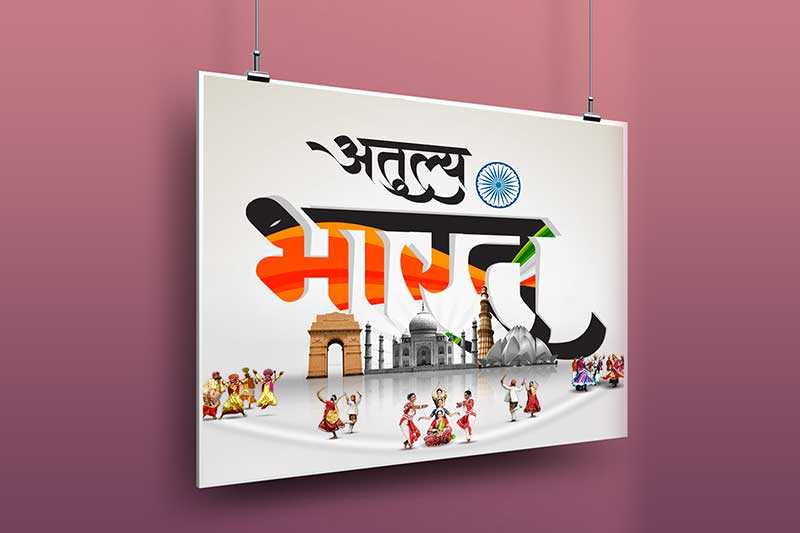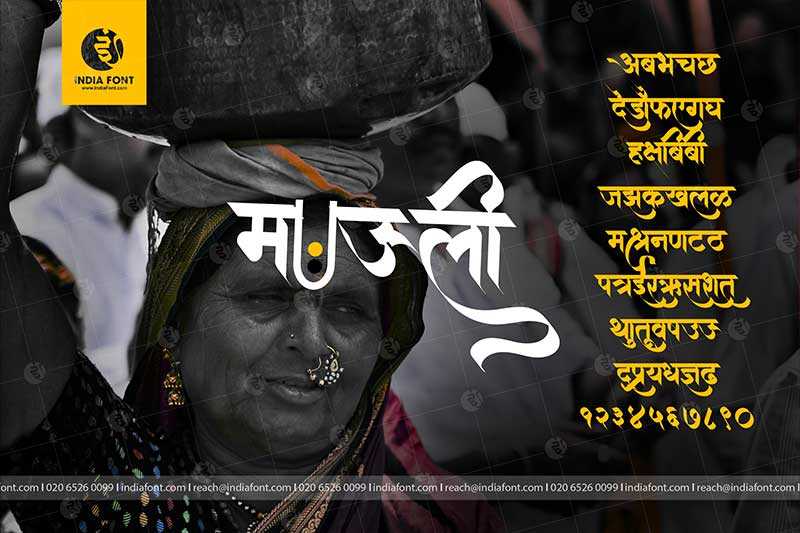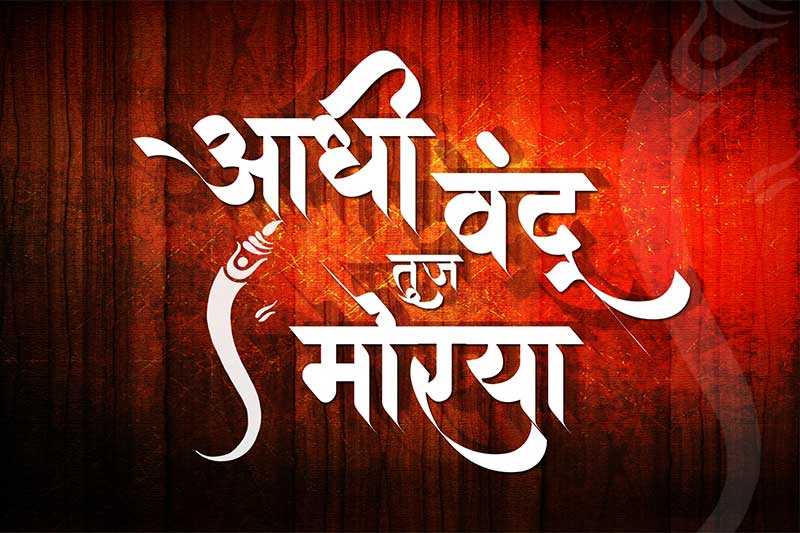
AMS Aaditya
Master AMS Aaditya: bold Hindi calligraphy font by Manoj Jaiswal. Perfect for wedding invitations and cultural designs. Learn advanced typography techniques, explore creative applications, and discover design inspiration for traditional Devanagari projects with authentic Indian calligraphic styling.
AMS Aaditya Design Inspiration
Explore how AMS Aaditya looks in real-world applications and get inspired for your next project
AMS Aaditya typography showcase 1
AMS Aaditya design example 2
AMS Aaditya font specimen 3
About AMS Aaditya Font
Master AMS Aaditya: bold Hindi calligraphy font by Manoj Jaiswal. Perfect for wedding invitations and cultural designs. Learn advanced typography techniques, explore creative applications, and discover design inspiration for traditional Devanagari projects with authentic Indian calligraphic styling. This calligraphy font combines elegance with functionality, making it perfect for various design applications.
AMS Aaditya is a professionally crafted calligraphy typeface that brings clarity and style to your projects. Designed with attention to detail, it supports hindi and marathi characters flawlessly.
Whether you're working on wedding-cards, invitations, greeting-cards, or other creative projects, AMS Aaditya delivers consistent performance across both digital and print media. This carefully designed typeface ensures readability and visual appeal in all your design work.
Why Choose AMS Aaditya?
AMS Aaditya excels in various design scenarios. Here are the most suitable applications:
About AMS Aaditya Typography Style
AMS Aaditya is a professionally crafted calligraphy font that exemplifies modern Hindi typography design. This free font is perfect for designers seeking versatile design applications.
Available in 1 weight and supporting hindi, marathi scripts, AMS Aaditya offers exceptional versatility for both digital and print media. Whether you're working on wedding-cards, invitations, greeting-cards, this carefully designed typeface ensures consistent quality and professional results across all your typography projects.